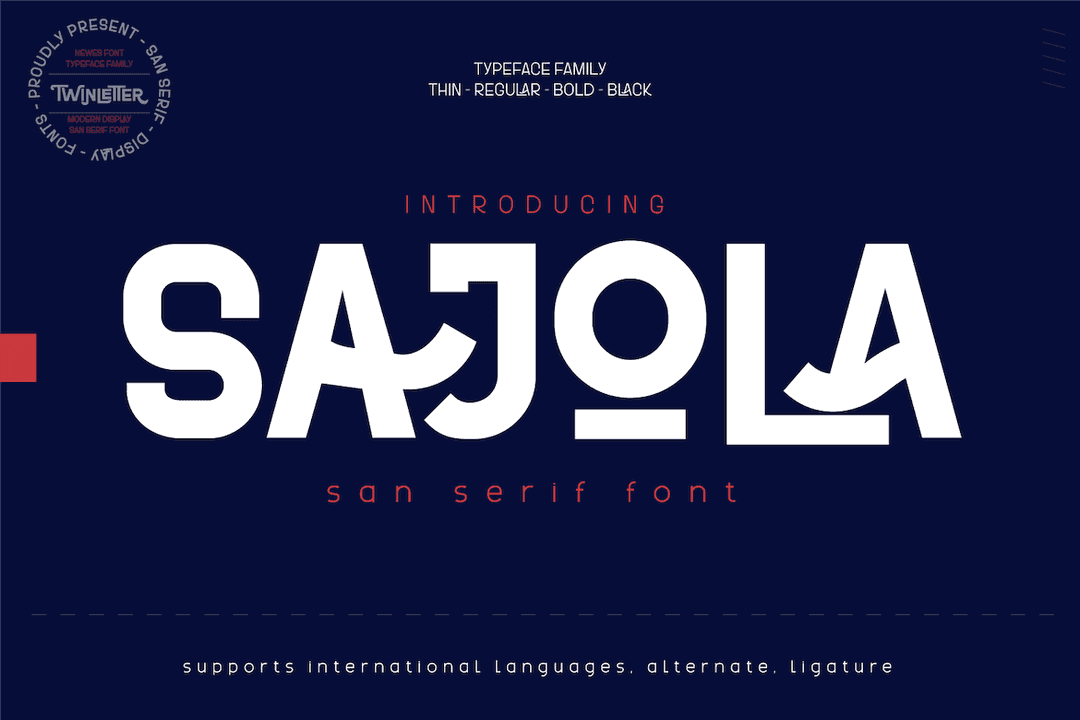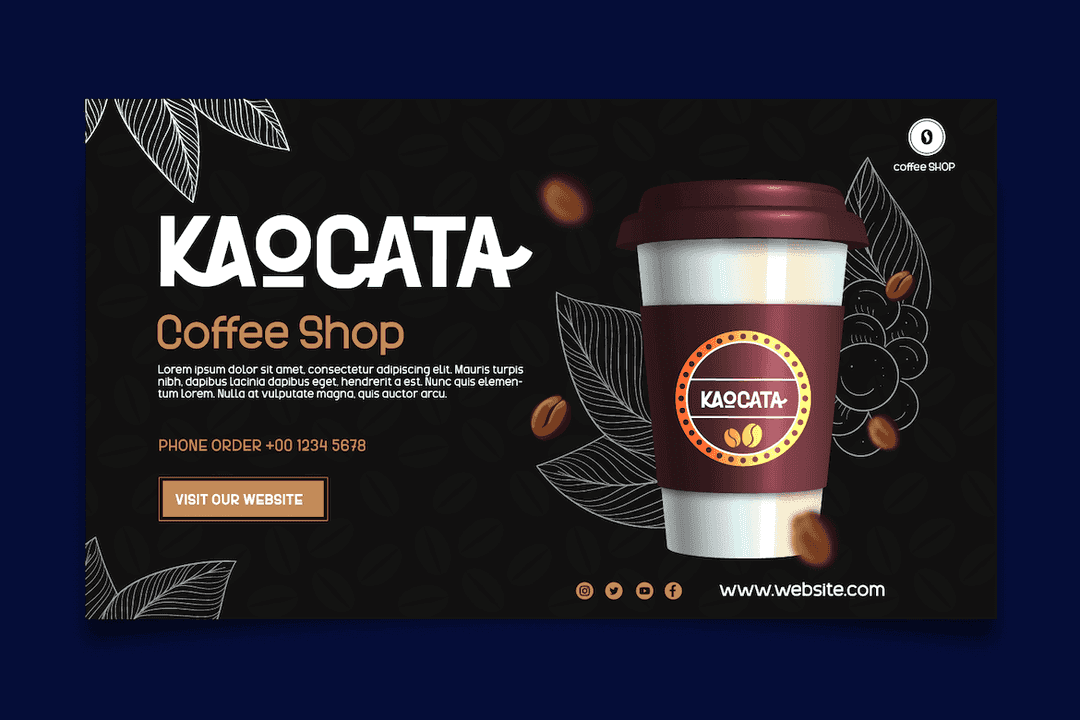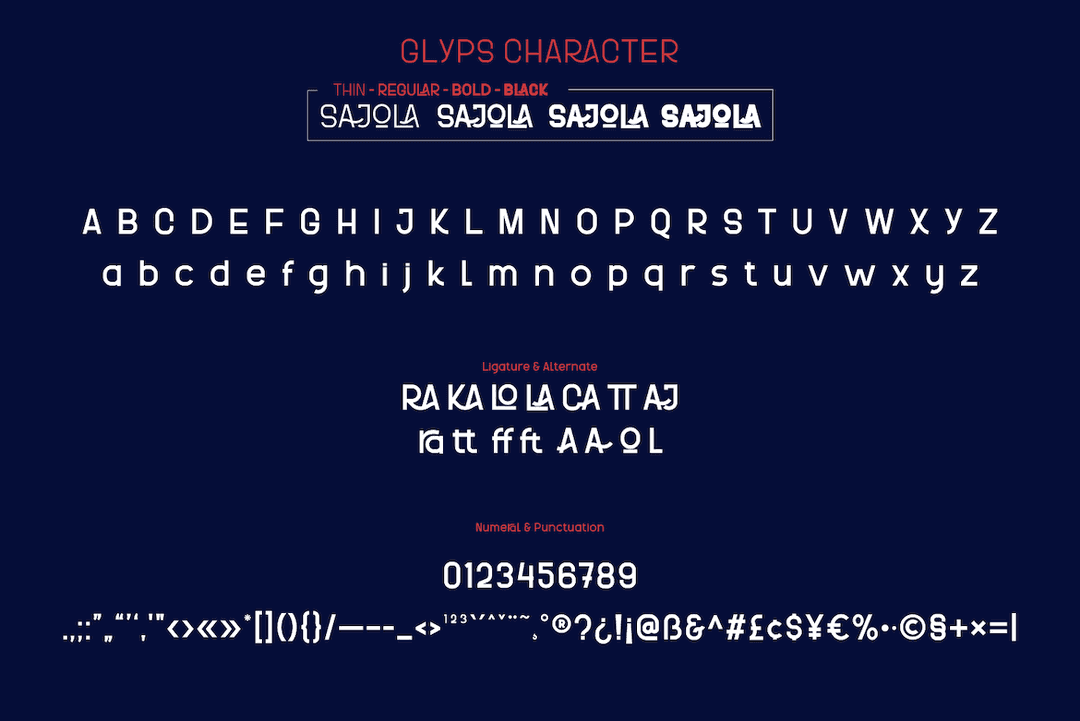
Sajola is a modern sans-serif font available in four variations, suitable for formal and non-formal settings. Each variation offers similar weighted characters and vertical dimensions to ensure consistent typography system usage across its different styles – as well as professional typography capabilities that enable using distinct variants of headings, subheadings, sentences and paragraph text this font is complete depending on which font option you select.